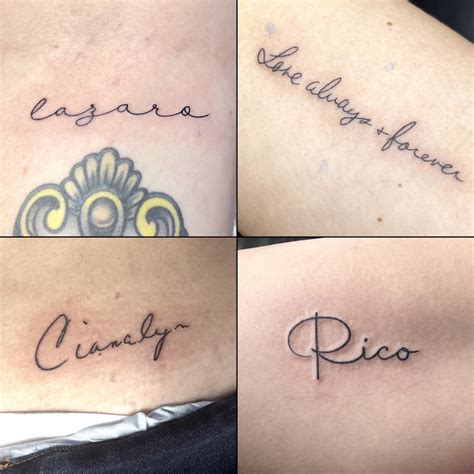
Fine Line Cursive Tattoo Font. Web script view on instagram channel carefree vibes with a script font that’s just barely legible. Add a unique touch to your body art with our stunning designs.
Web script view on instagram channel carefree vibes with a script font that’s just barely legible. Best for cursive tattoos 3. Add a unique touch to your body art with our stunning designs. Web personal use free. Collection of fonts for tattoo fine line. Top choice for cursive tattoos 2. Web explore our diverse range of free cursive, tattoo fonts.
Web script view on instagram channel carefree vibes with a script font that’s just barely legible. Collection of fonts for tattoo fine line. Web explore our diverse range of free cursive, tattoo fonts. Best for cursive tattoos 3. Web personal use free. Top choice for cursive tattoos 2. Web script view on instagram channel carefree vibes with a script font that’s just barely legible. Add a unique touch to your body art with our stunning designs.